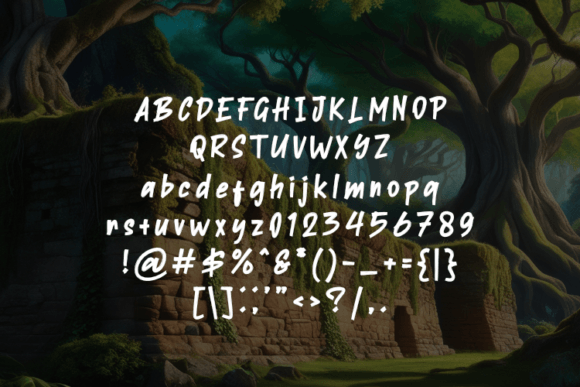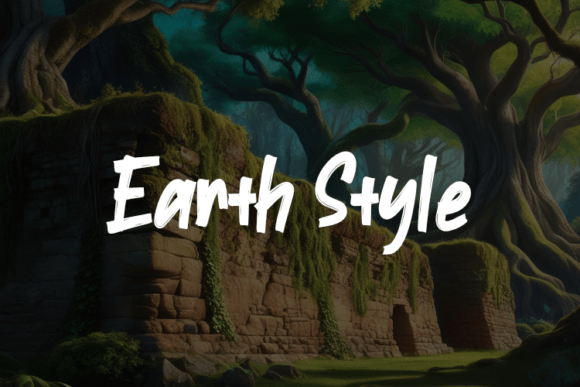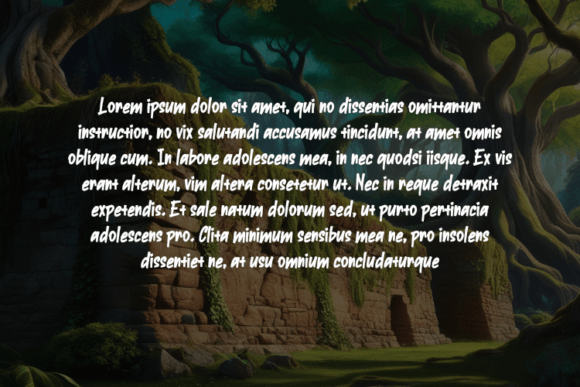
Introducing Earth Wall Font: A Bold and Modern Typeface Inspired by Our Planet
In the world of typography, fonts play a crucial role in conveying messages, expressing emotions, and creating visual identities. For designers and crafters, finding the perfect font can be a daunting task, especially when looking for something that stands out from the crowd. That’s where Earth Wall Font comes in – a stunning typeface that embodies the beauty and power of our planet Earth.
The Inspiration Behind Earth Wall Font
Earth Wall Font is a creative expression of the natural world, with its strong and bold character inspired by the rugged landscapes, majestic mountains, and vast oceans of our planet. The font’s design is rooted in the idea of capturing the essence of Earth’s raw beauty and translating it into a modern, versatile typeface.
Design Characteristics of Earth Wall Font
Earth Wall Font boasts a unique blend of strength and elegance, making it an excellent choice for a wide range of design applications. Some of its key design characteristics include:
- Bold and sturdy letters: Earth Wall Font features thick, confident lines that evoke a sense of solidity and permanence.
- Modern touch: The font’s clean lines, subtle curves, and carefully crafted details give it a contemporary feel that’s perfect for modern designs.
- High legibility: Earth Wall Font is designed to be easy to read, even at smaller sizes, making it suitable for use in various media.
Uses of Earth Wall Font
One of the most significant advantages of Earth Wall Font is its versatility. Its bold character and modern aesthetic make it an excellent choice for a variety of design projects, including:
- Clothing and apparel: Earth Wall Font is perfect for designing t-shirts, hoodies, and other clothing items that require a bold, eye-catching font.
- Posters and flyers: The font’s strong character and high legibility make it ideal for creating posters, flyers, and other promotional materials.
- Branding and logos: Earth Wall Font can be used to create unique and memorable logos, as well as brand identities that require a bold, modern look.
- Signage and displays: The font’s sturdy design makes it suitable for use in signage, displays, and other applications where visibility is crucial.
Why Choose Earth Wall Font?
With so many fonts available, why choose Earth Wall Font? Here are just a few reasons why designers and crafters love this typeface:
- Unique and distinctive: Earth Wall Font stands out from more traditional fonts, offering a fresh and distinctive look that’s sure to grab attention.
- Easily adaptable: The font’s versatility makes it easy to use in various design applications, from digital media to print materials.
- High-quality design: Earth Wall Font is crafted with attention to detail, ensuring a high-quality design that’s both visually appealing and functional.
Earth Wall Font is a powerful and modern typeface that embodies the beauty and strength of our planet Earth. Its bold character, high legibility, and versatility make it an excellent choice for designers and crafters looking for a font that can elevate their designs. Whether you’re creating clothing, posters, logos, or signage, Earth Wall Font is sure to make a lasting impression.